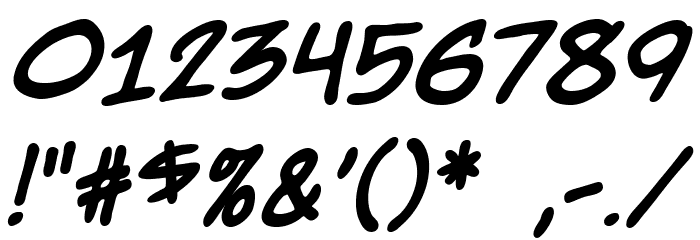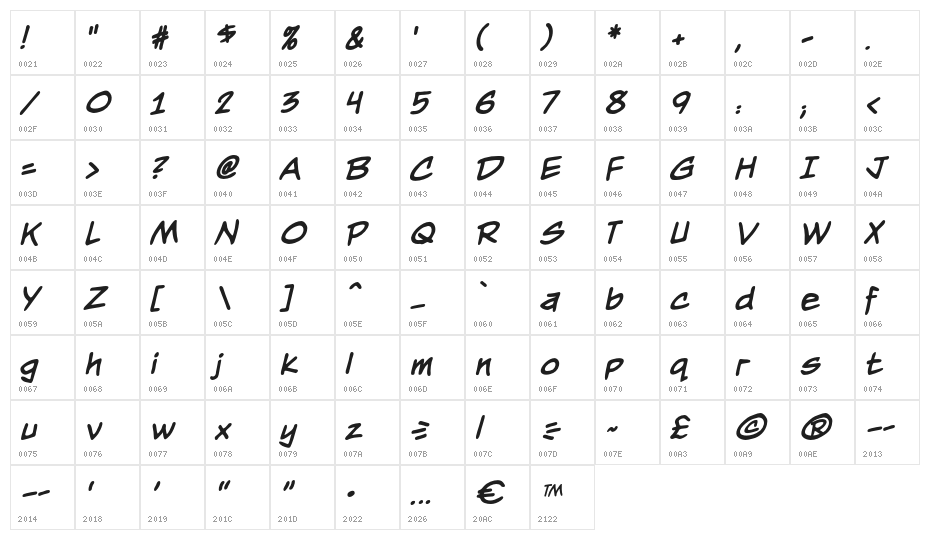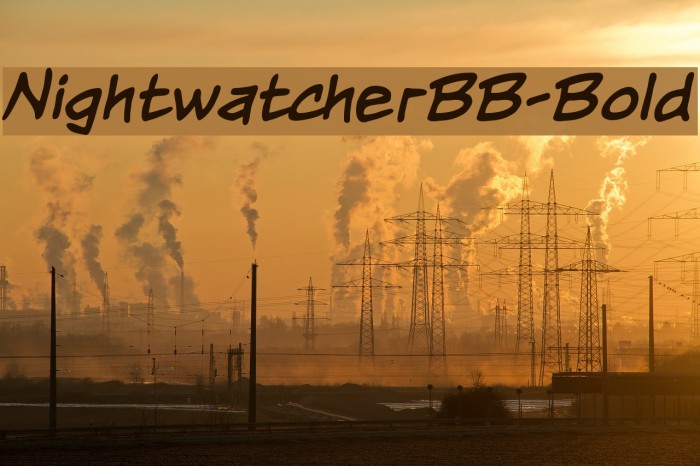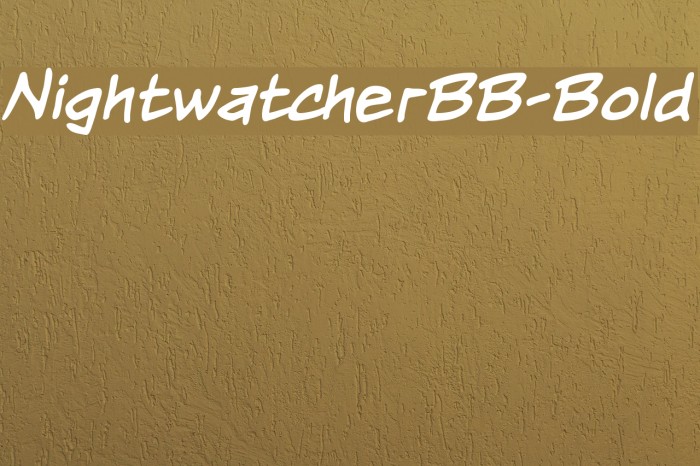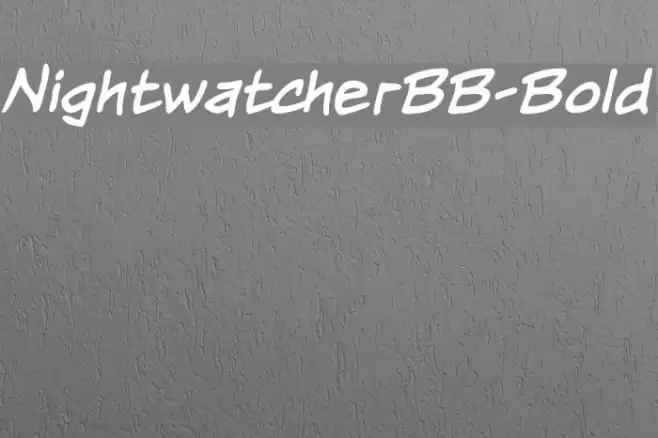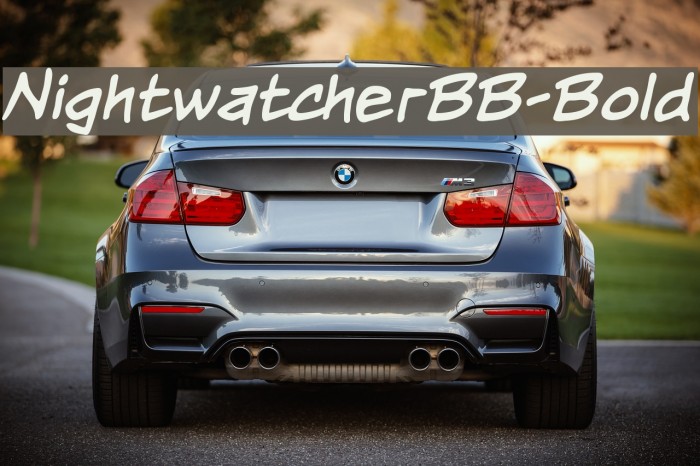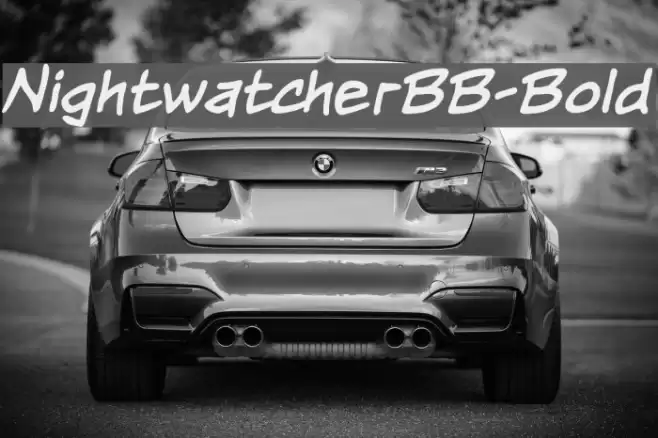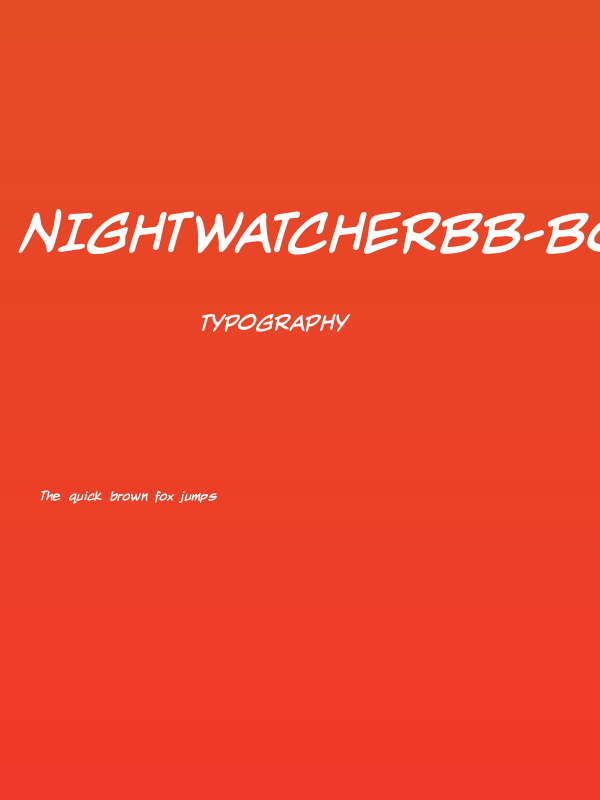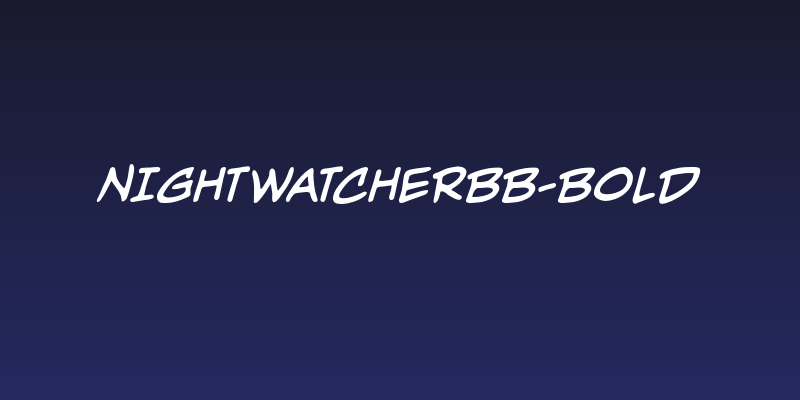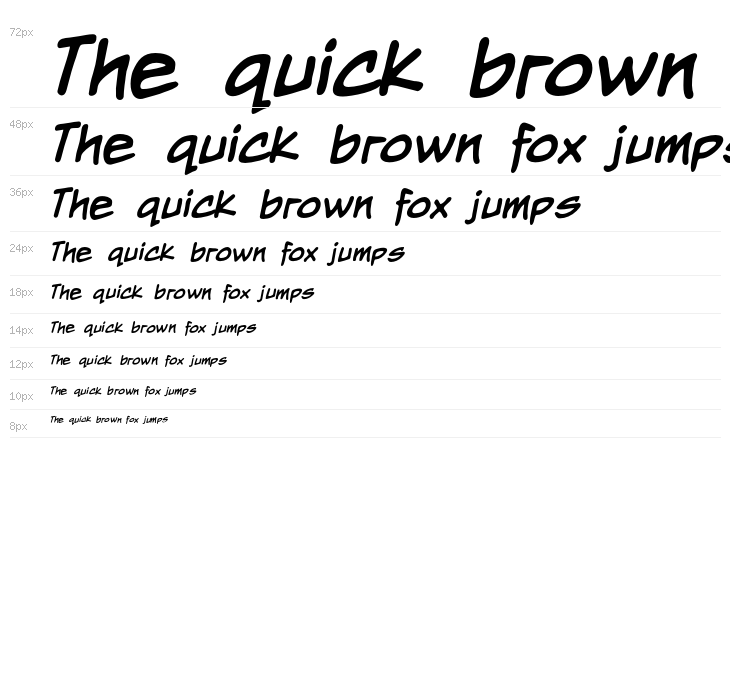
NightwatcherBB-Bold Font
NightwatcherBB-Bold Description
This font features a bold and dynamic script style with a handwritten appearance. The letters are slightly slanted, giving a sense of movement and energy. The strokes are thick and consistent, providing a strong visual impact. The uppercase letters are well-defined and slightly larger than the lowercase, maintaining readability. The numerals and special characters are designed to match the overall style, ensuring a cohesive look across all text elements. This font's playful yet assertive nature makes it suitable for various creative applications.